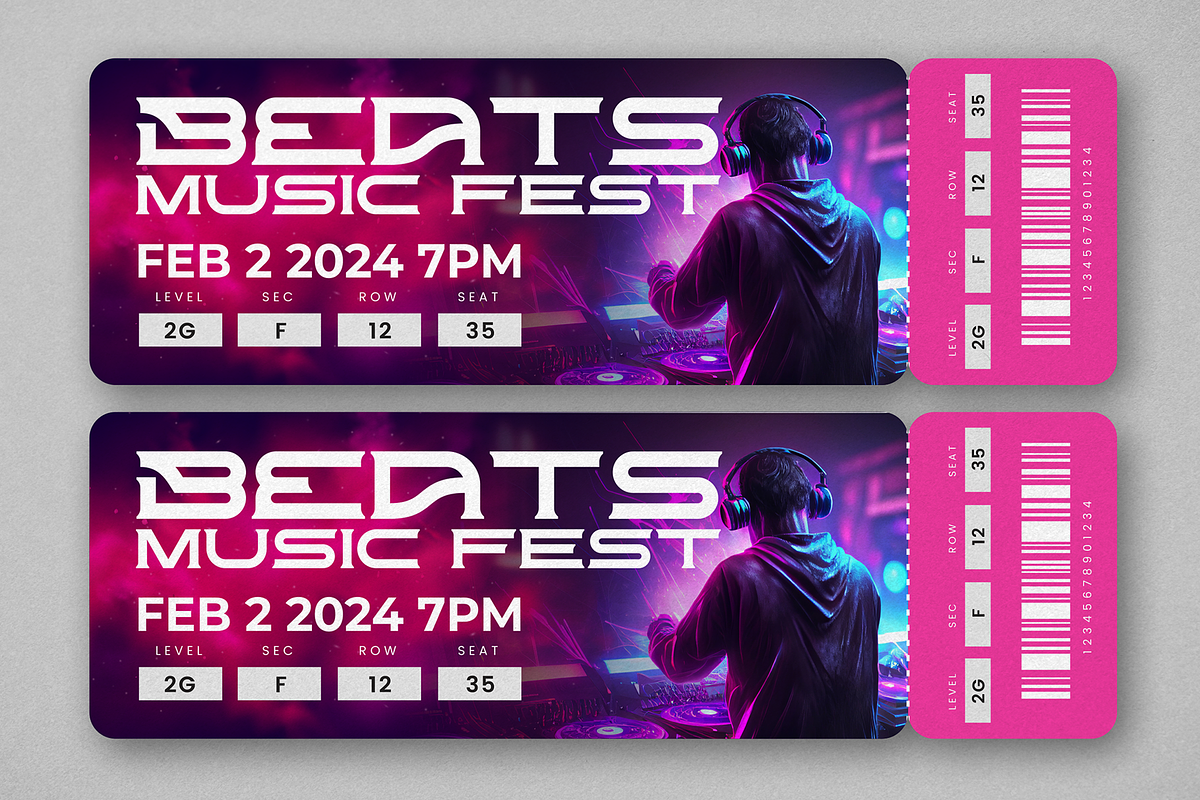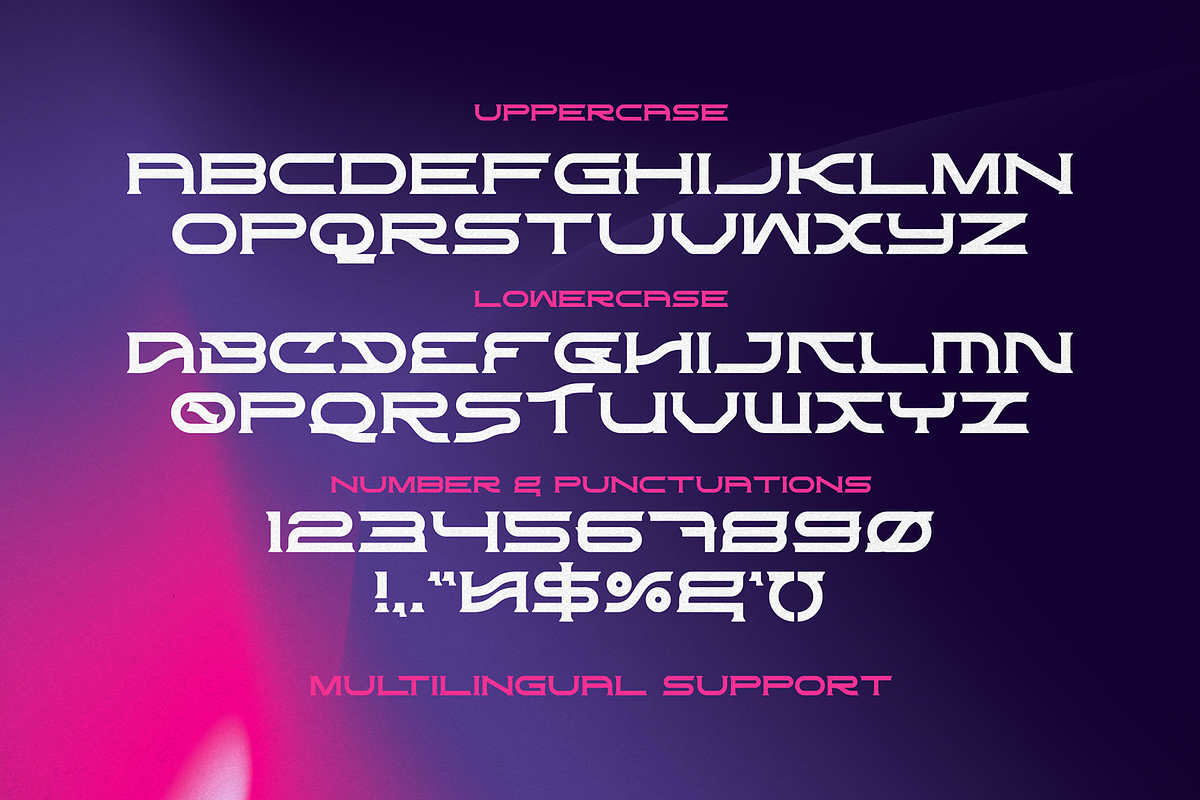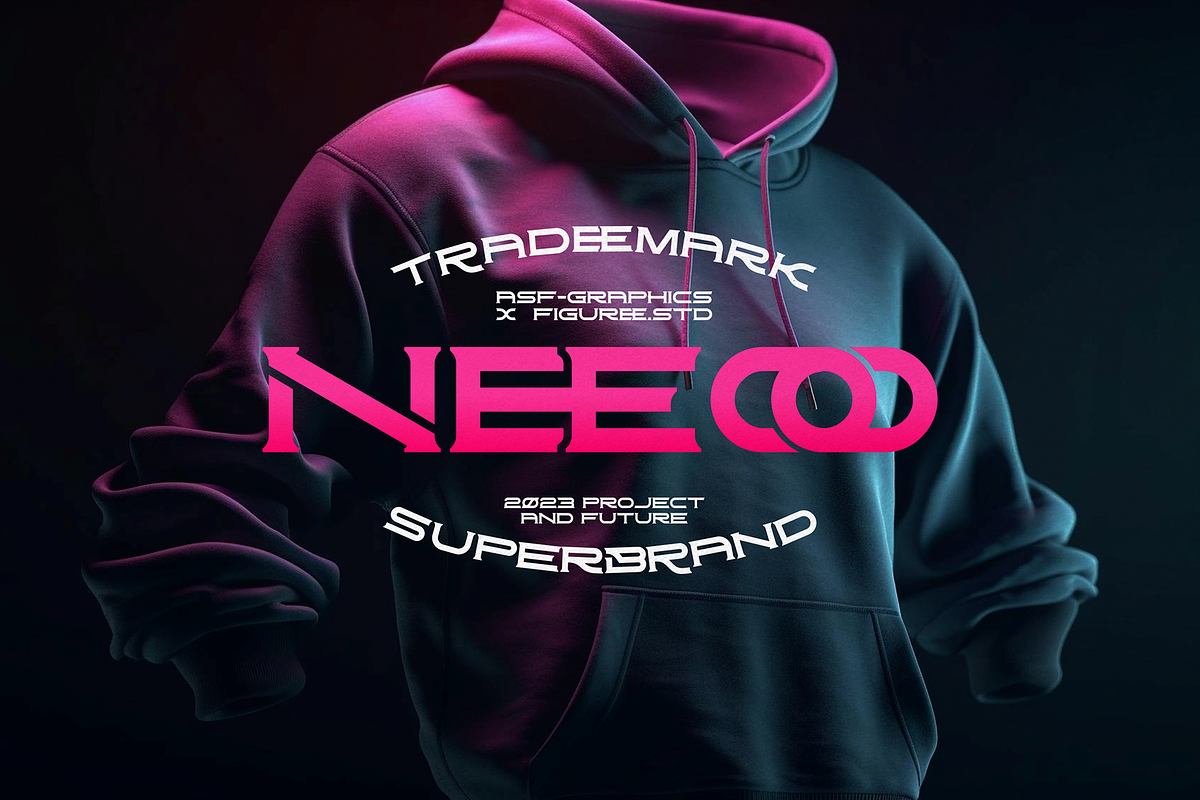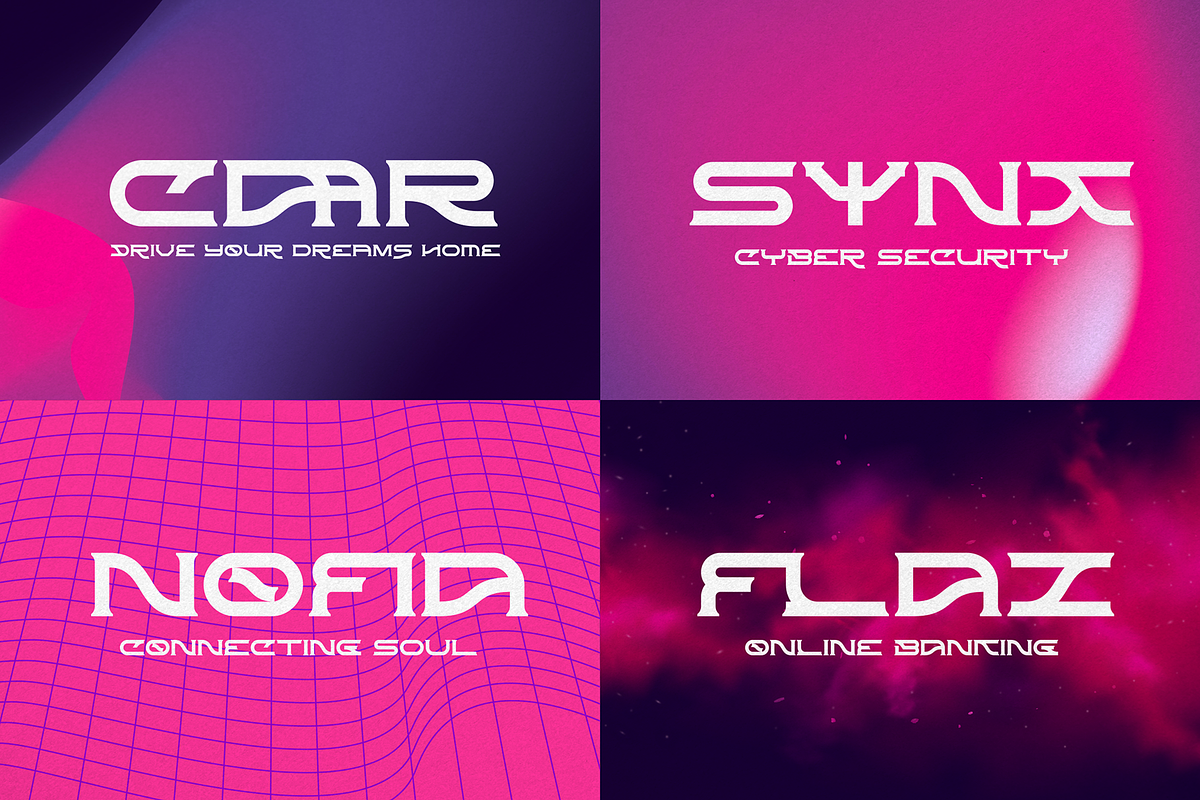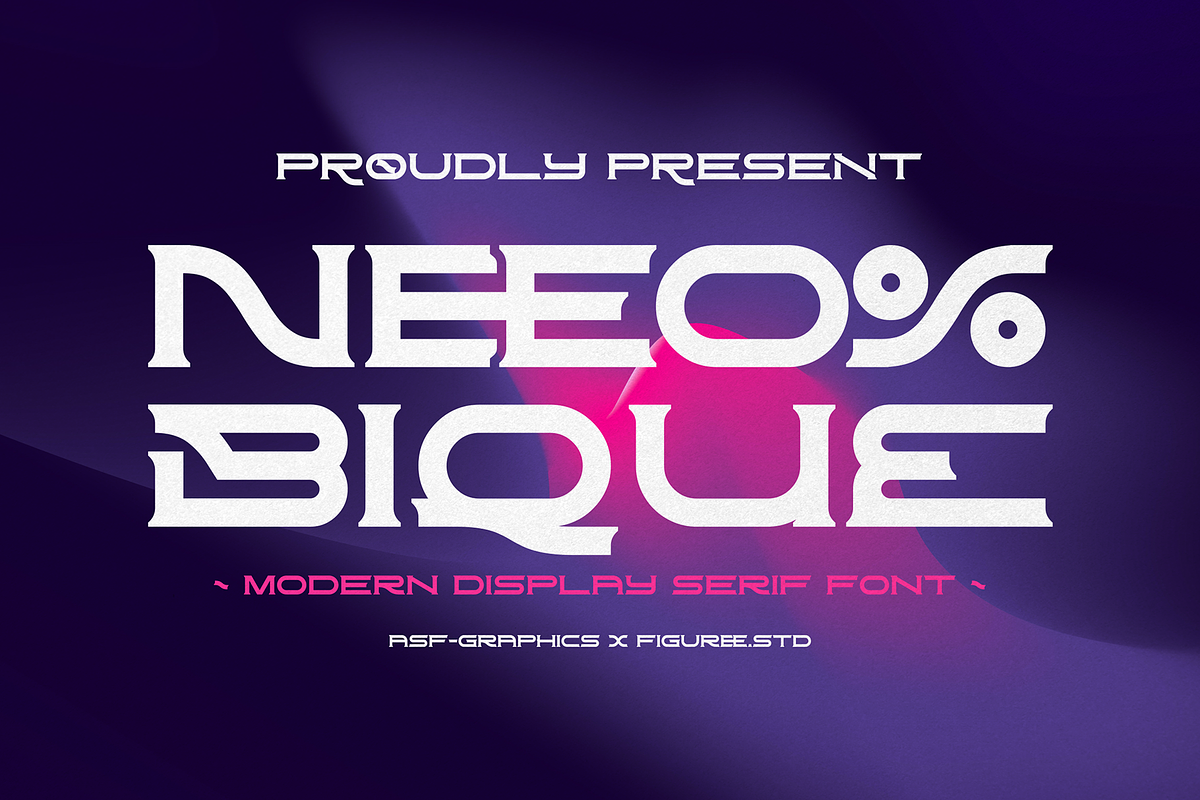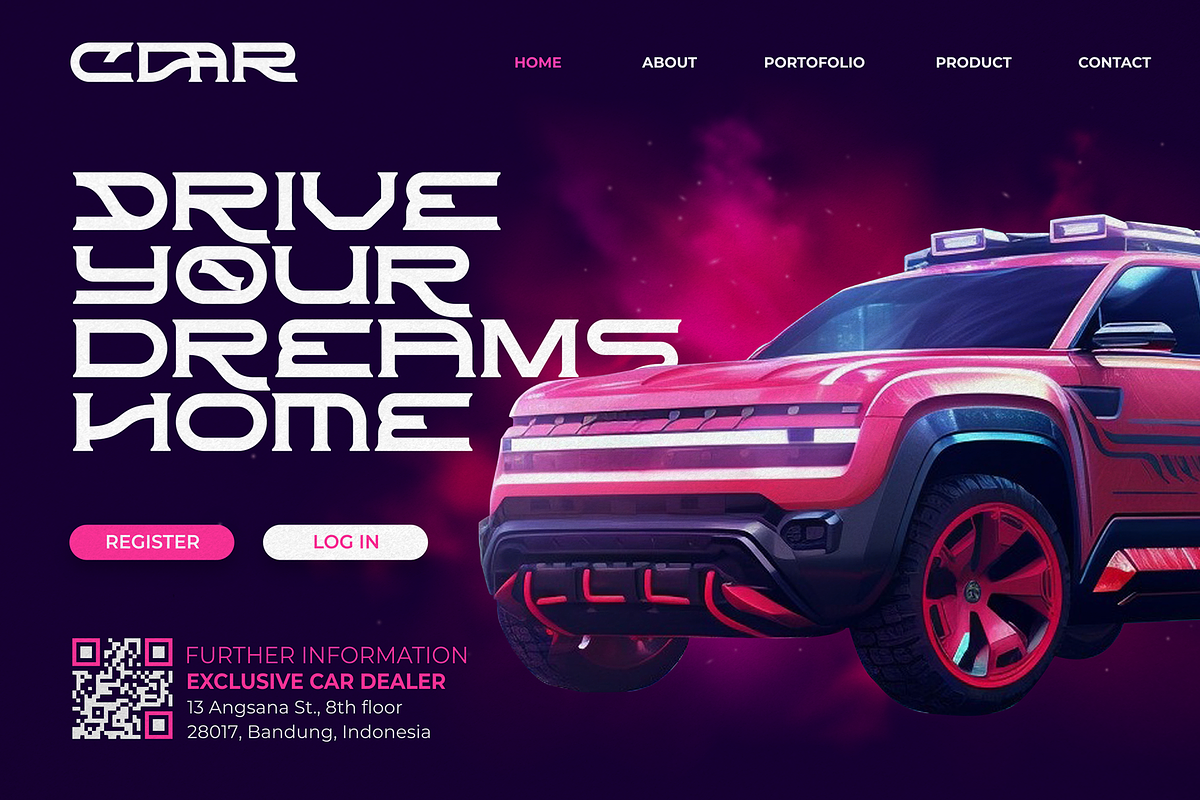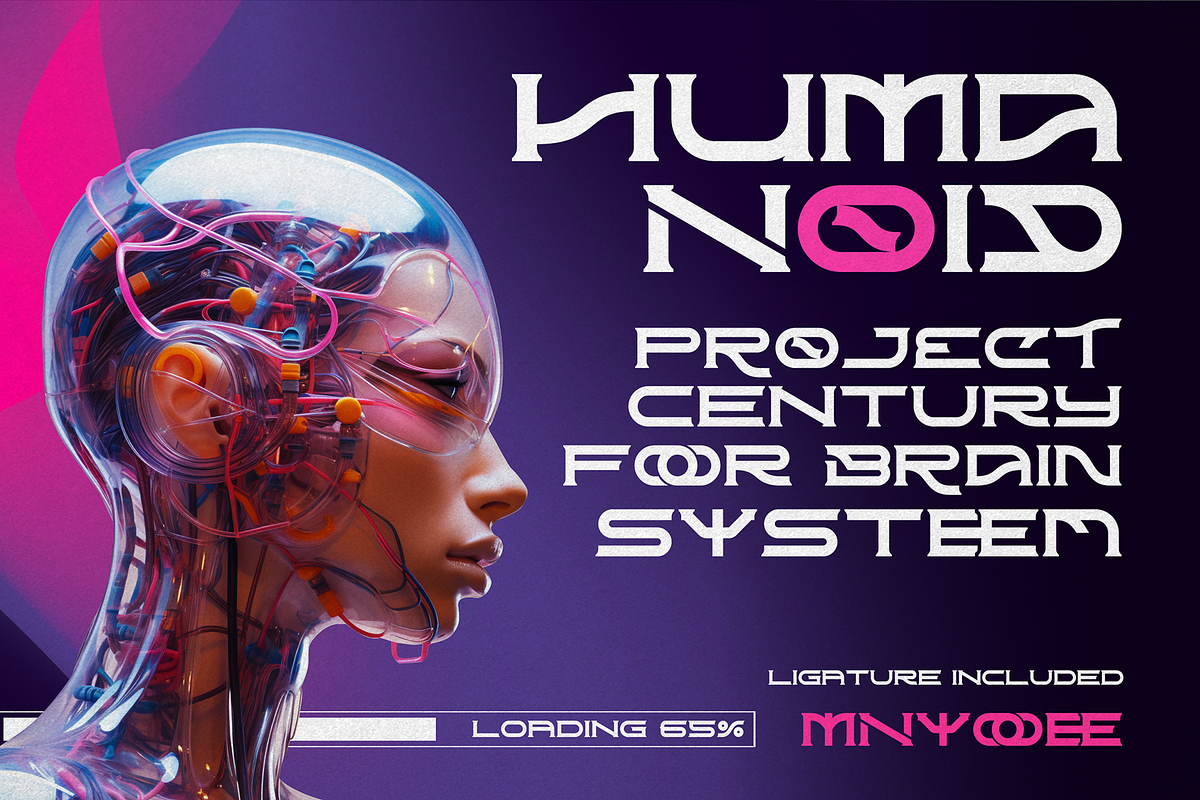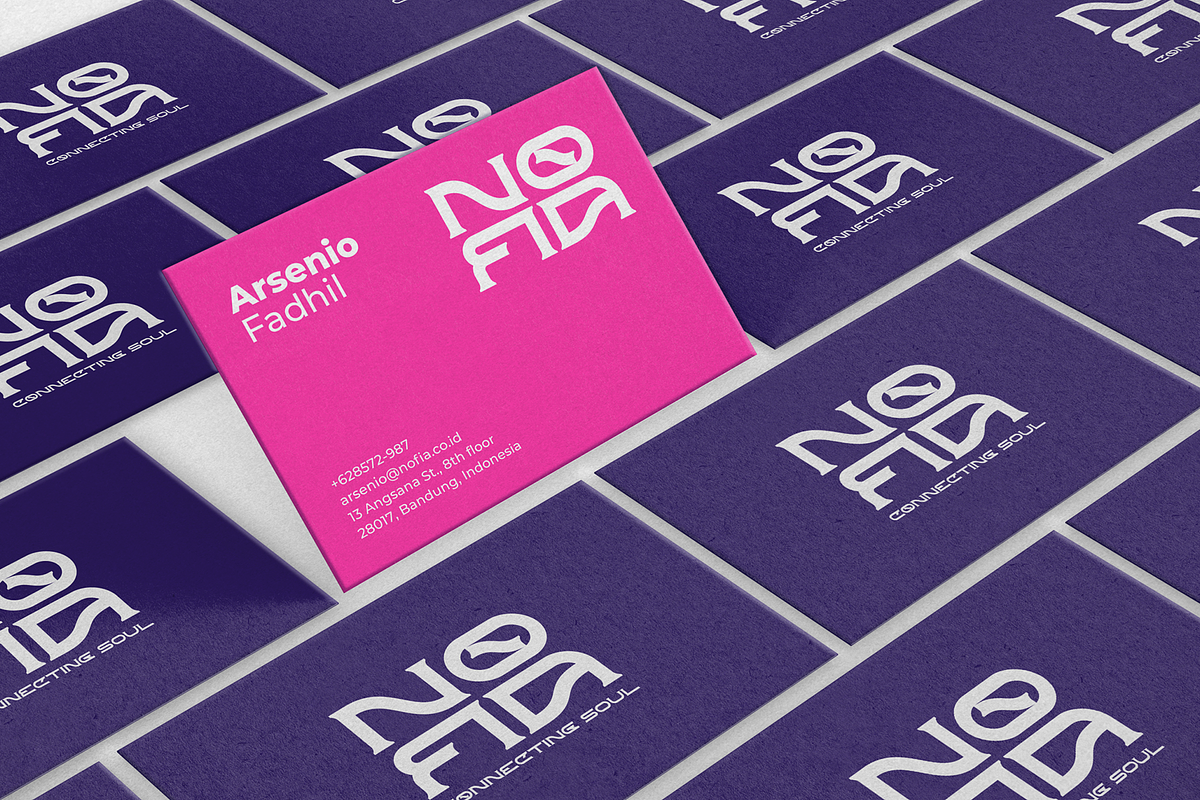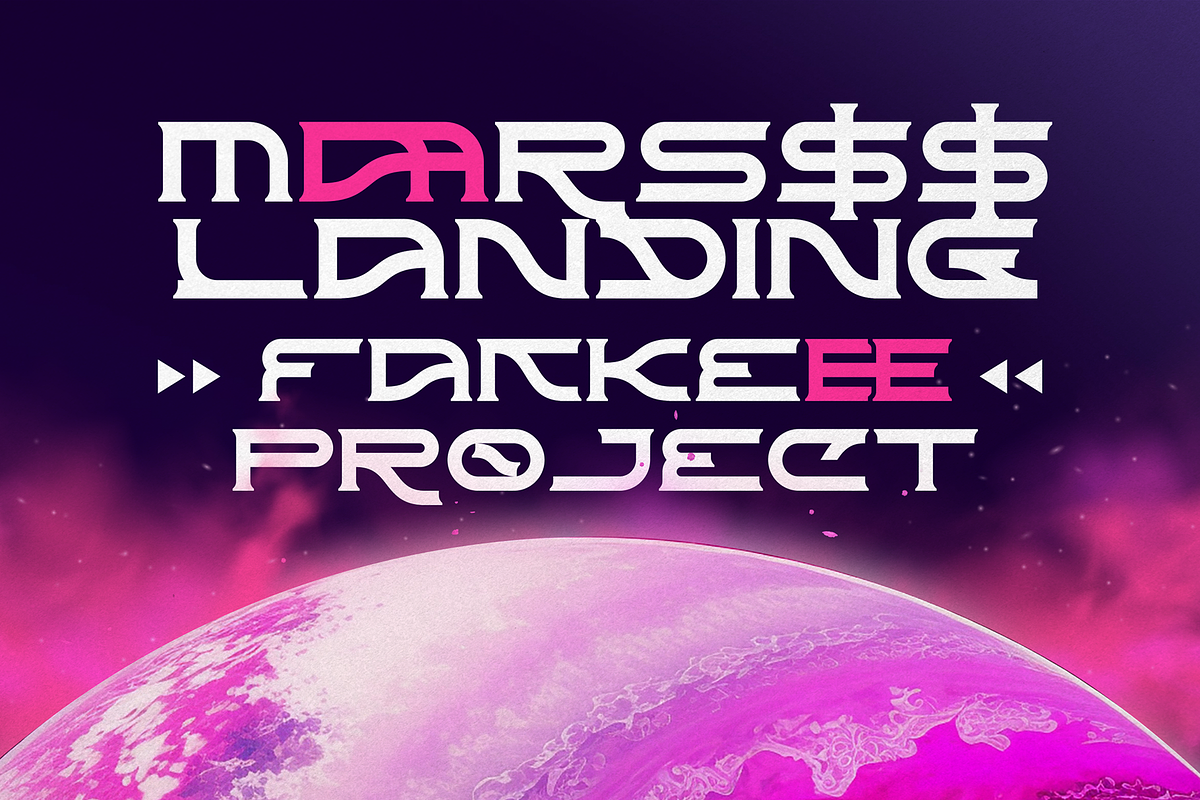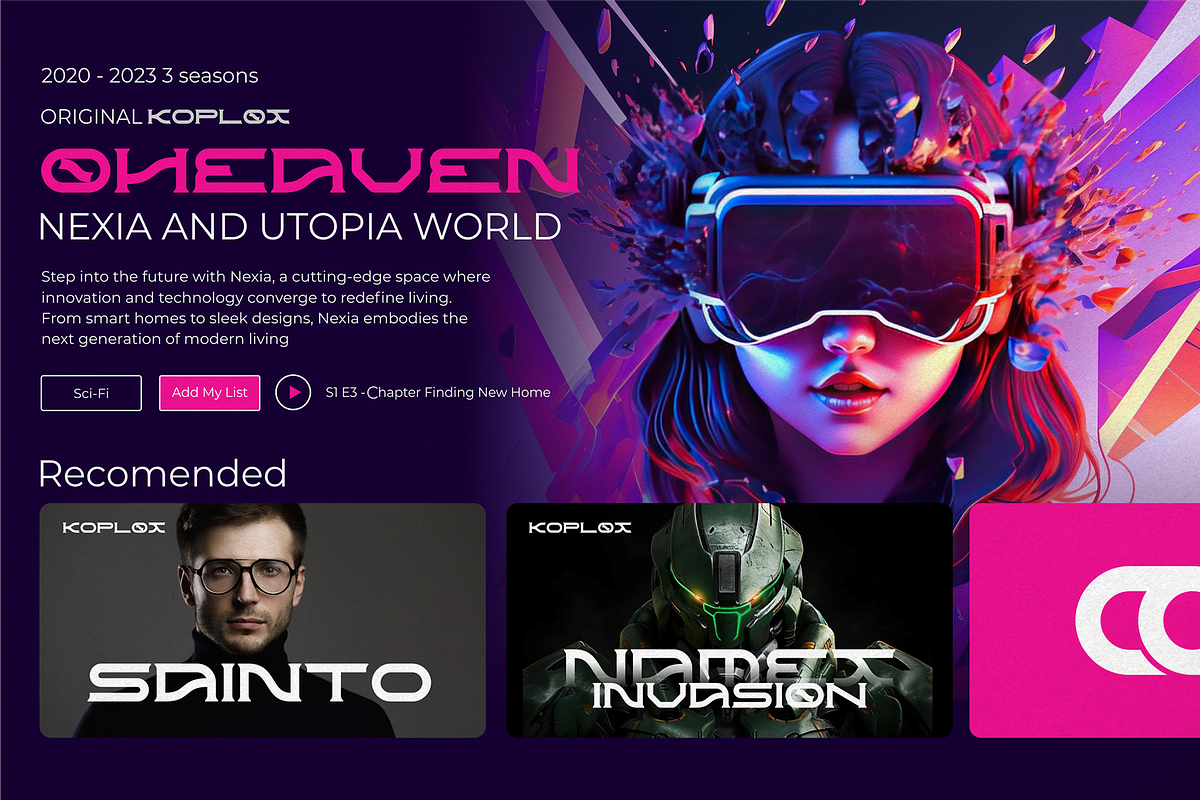
Neobique - Modern Display Serif
Neobique stands as the epitome of futuristic elegance in the realm of modern display serif fonts. With its clean lines and precision-crafted serifs, Neobique redefines sophistication for the digital age. This font is more than a typographic tool; it's a visual symphony where every letter resonates with the harmonious blend of classic serifs and futuristic minimalism.
In Neobique, tradition meets innovation, and clarity reigns supreme. Each character is a beacon of modernity, leading the way into a typographic future where sleekness and sophistication coalesce seamlessly. This font is not just a choice; it's a design philosophy — a powerful and futuristic statement that in the world of clean, modern display serif fonts, Neobique stands as the pinnacle, a beacon of timeless elegance in the digital landscape.